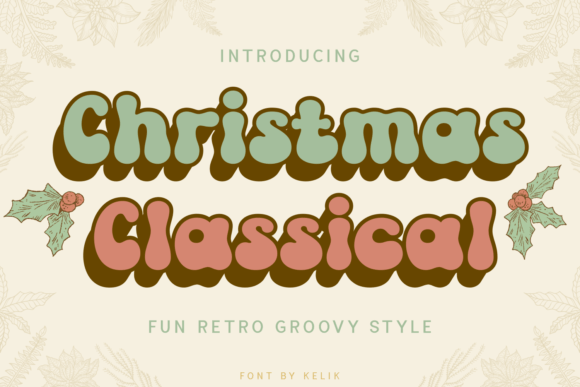
Welcome to the enchanting world of Christmas Classical Font, where the magic of the holiday season comes alive in every letter. Created by the talented typographer Kelik of 7NTypes, this font is a true masterpiece that will captivate your imagination and elevate your design projects to new heights.
With its delightful blend of retro and vintage vibes, Christmas Classical font brings a touch of nostalgia and warmth to any creative endeavor. Whether you're designing a festive holiday card, crafting a mesmerizing sign for your home, or adding a whimsical touch to your social media posts, this font is your ultimate companion.
What sets Christmas Classical font apart is its ability to evoke emotions and transport you to cherished memories. The playful curves and elegant strokes of each character create a sense of joy and wonder, making it the perfect choice for spreading holiday cheer. Imagine the delight on your loved ones' faces when they receive a personalized Christmas card featuring this enchanting font.
But this font isn't limited to just holiday-themed designs. Its versatility shines through in various applications, making it a must-have for any designer or creative enthusiast. From branding your business with a touch of festive flair to creating eye-catching sublimation designs, Christmas Classical font has got you covered.
As you explore the collection page, you'll find an array of options to suit your unique style and project requirements. Whether you prefer a bold and commanding look or a more delicate and whimsical feel, there's a variation of Christmas Classical font that will speak to your creative spirit.
But don't just take our word for it – let the font itself tell the story. Allow its elegant curves and captivating charm to sweep you off your feet and ignite your creativity. With Christmas Classical font, the possibilities are endless, and your designs will truly stand out from the crowd.
So why wait? Embrace the magic of Christmas Classical font and unlock a world of creative possibilities. Whether you're a professional designer or a passionate DIY enthusiast, this font will be your trusty companion throughout the holiday season and beyond.
Get ready to spread joy, evoke nostalgia, and create unforgettable designs with Christmas Classical font. It's time to make your mark and leave a lasting impression.